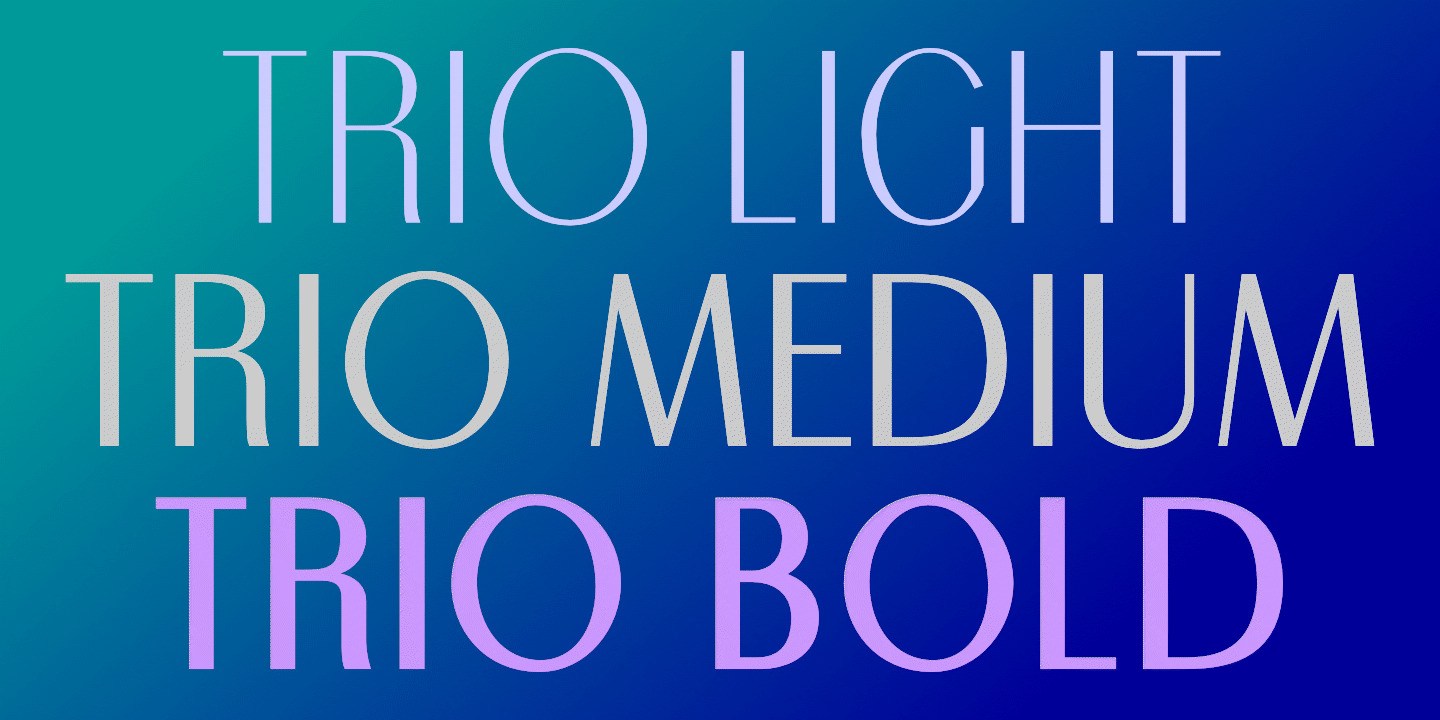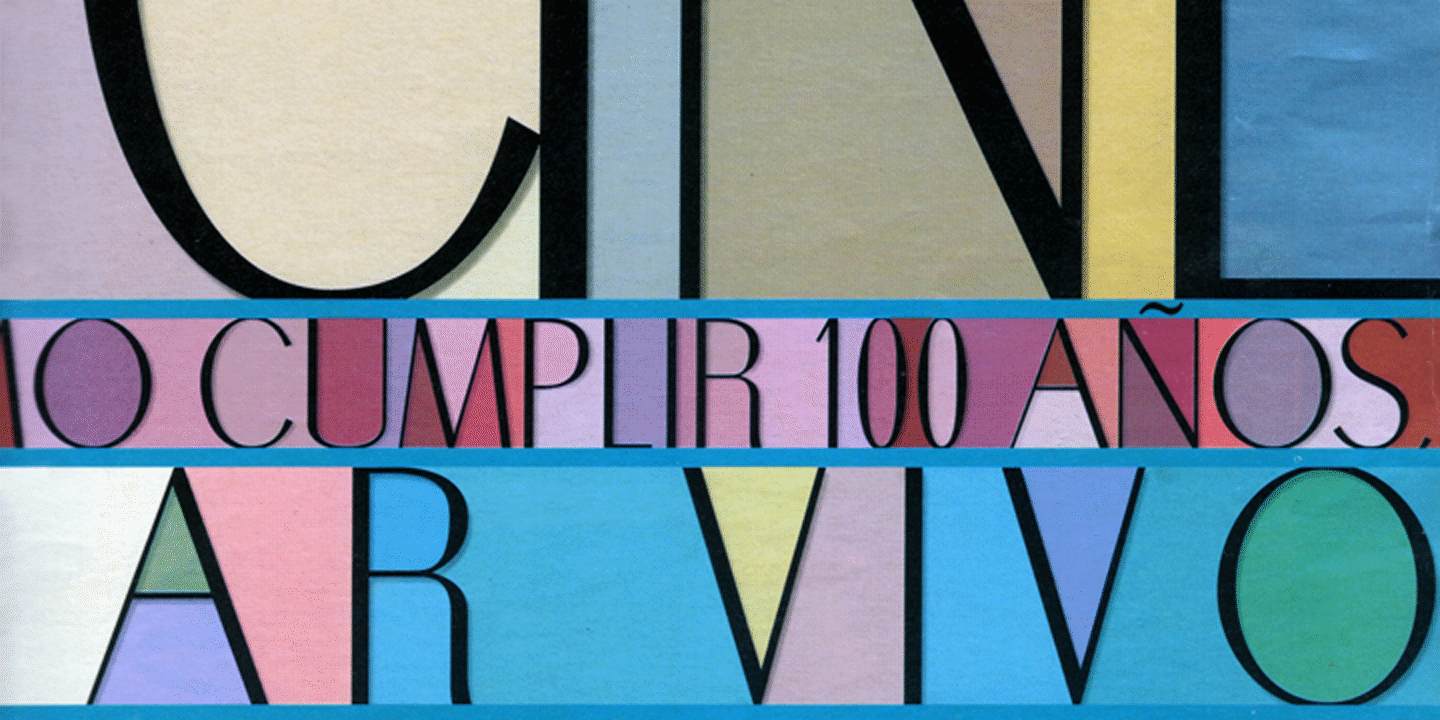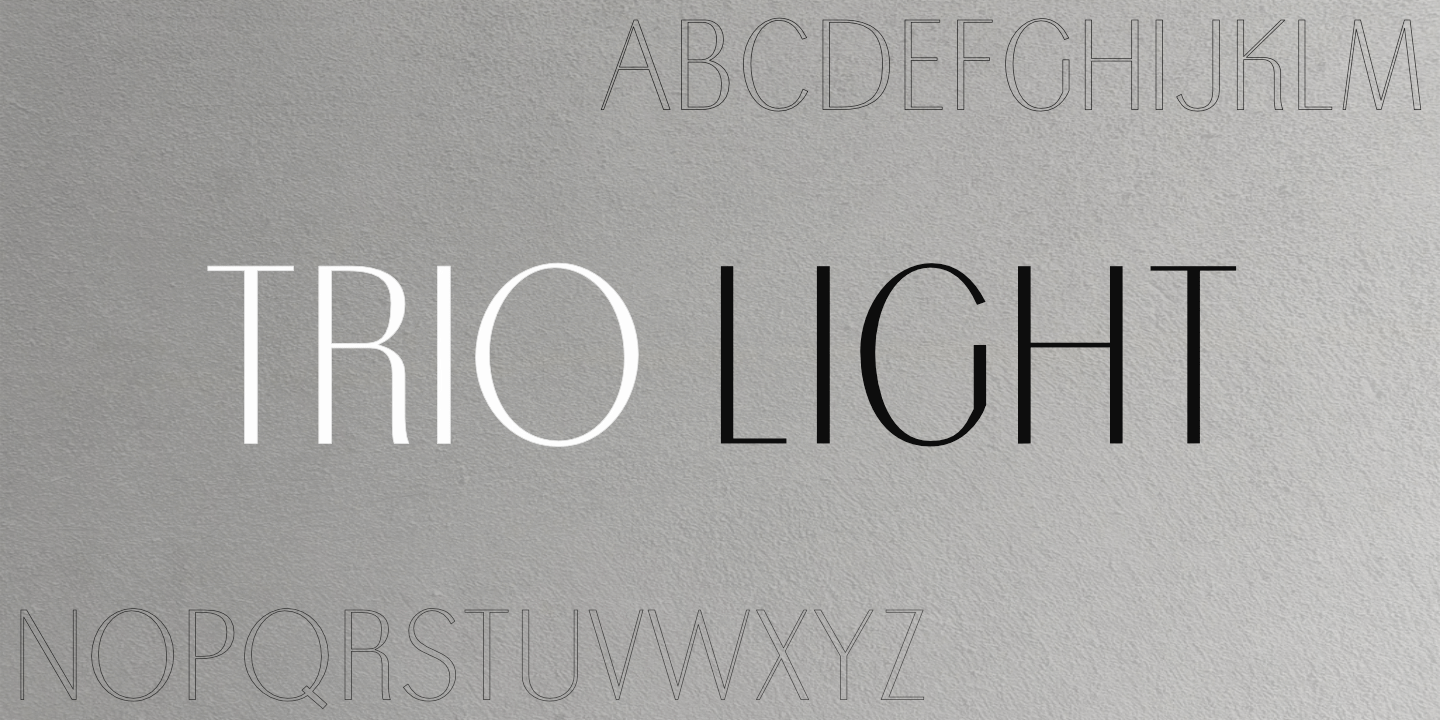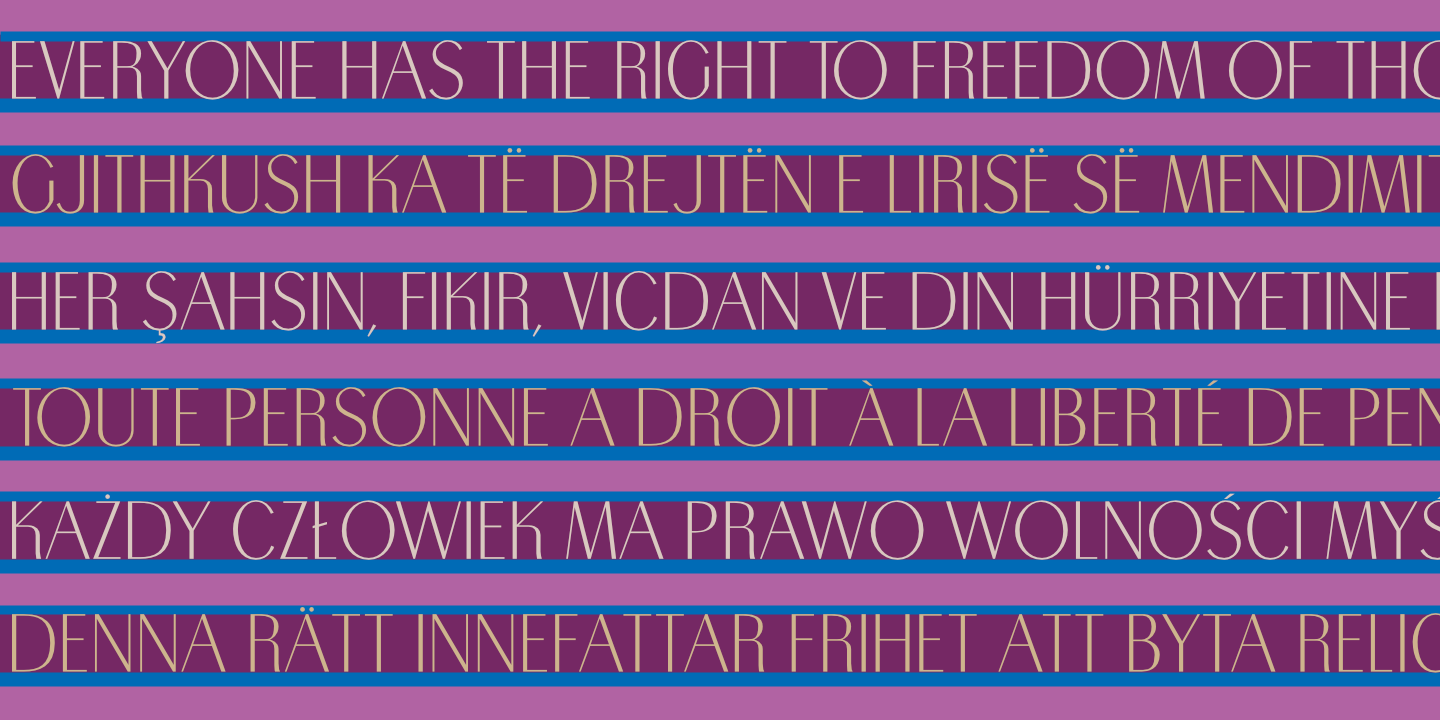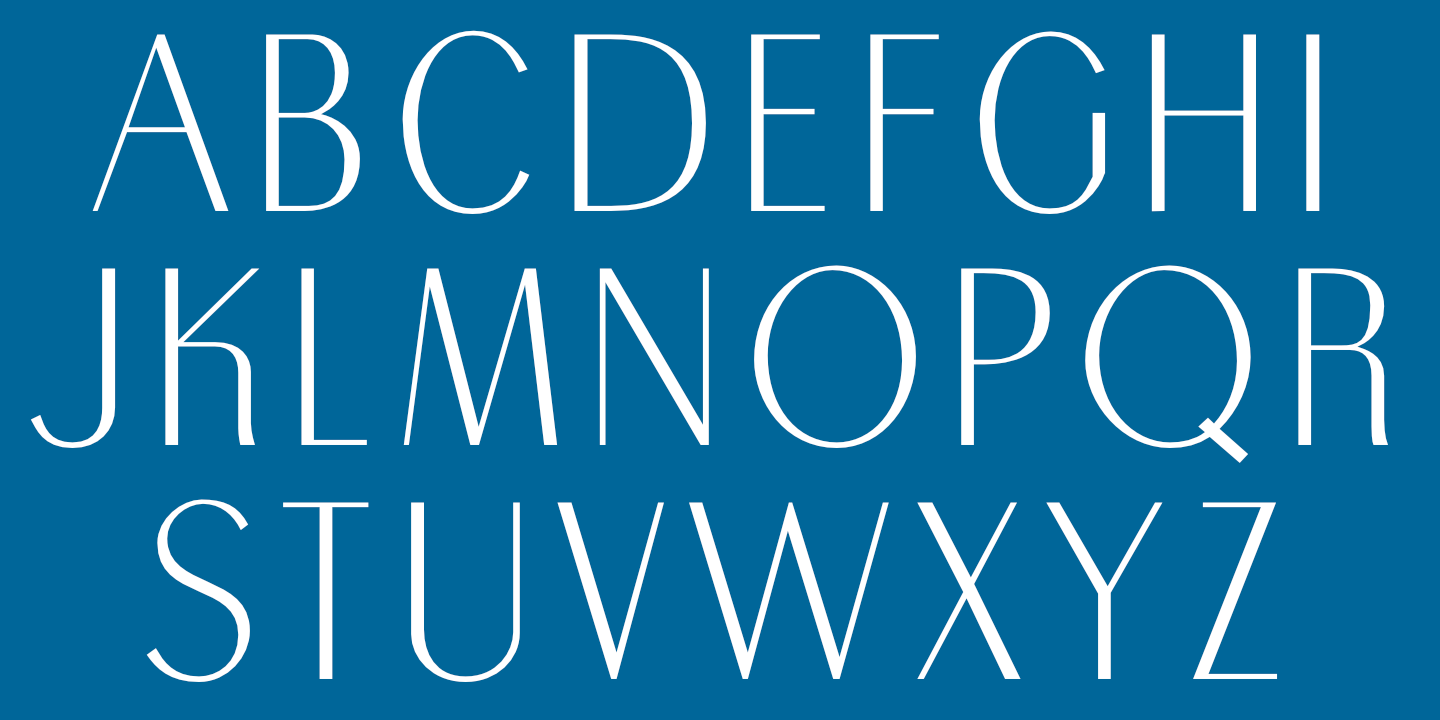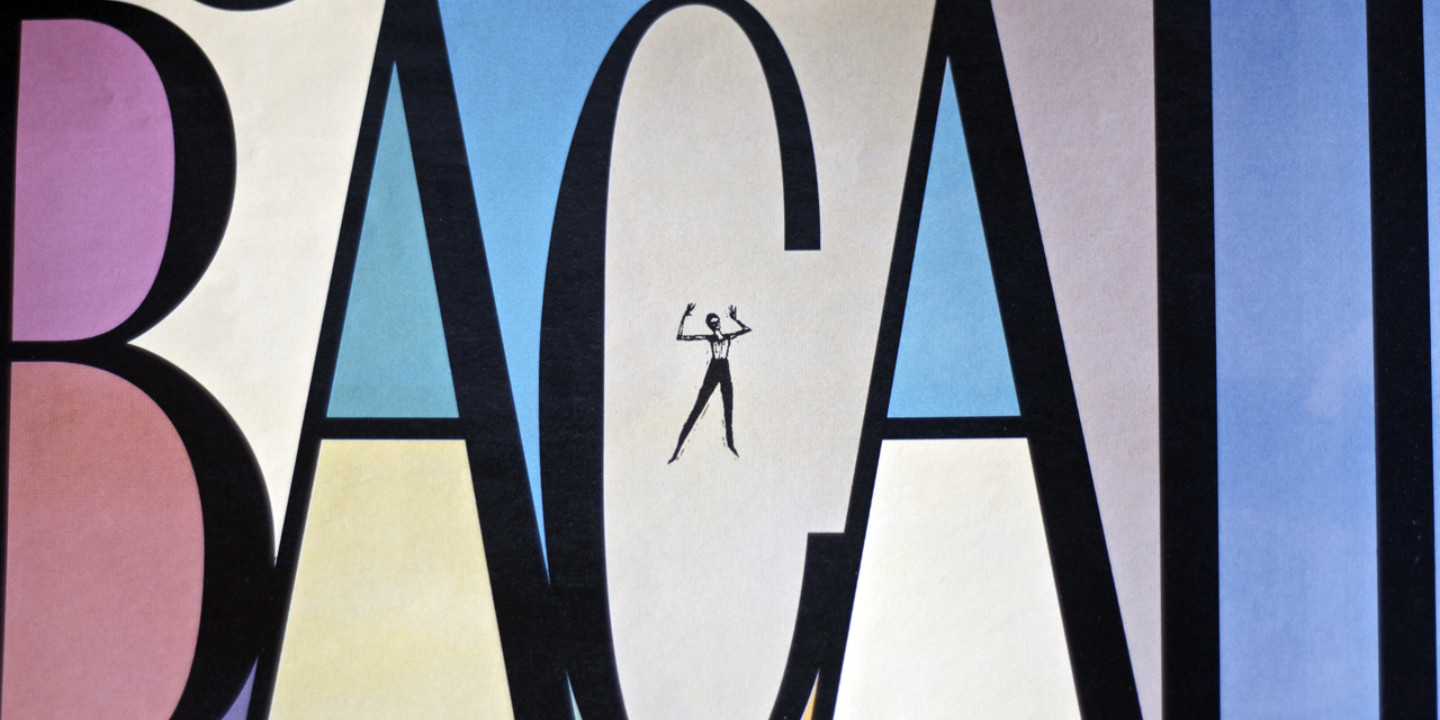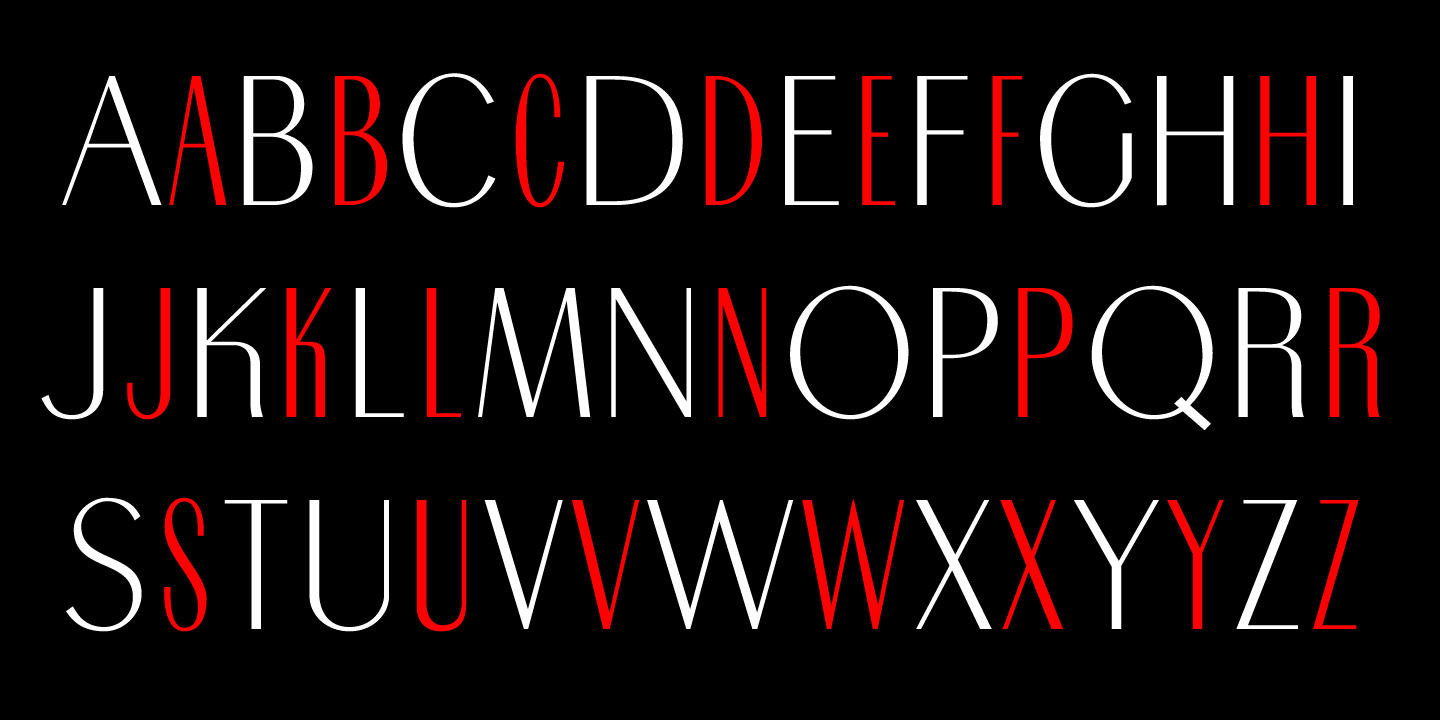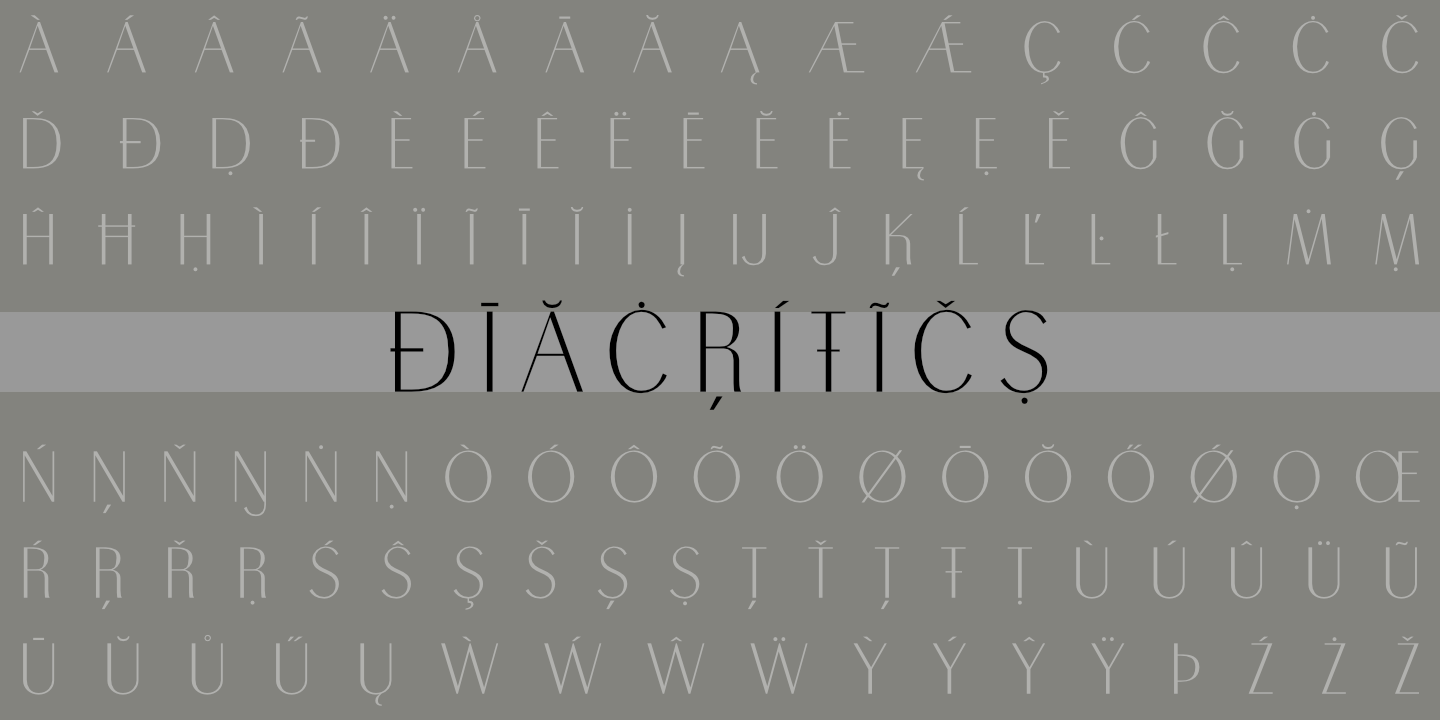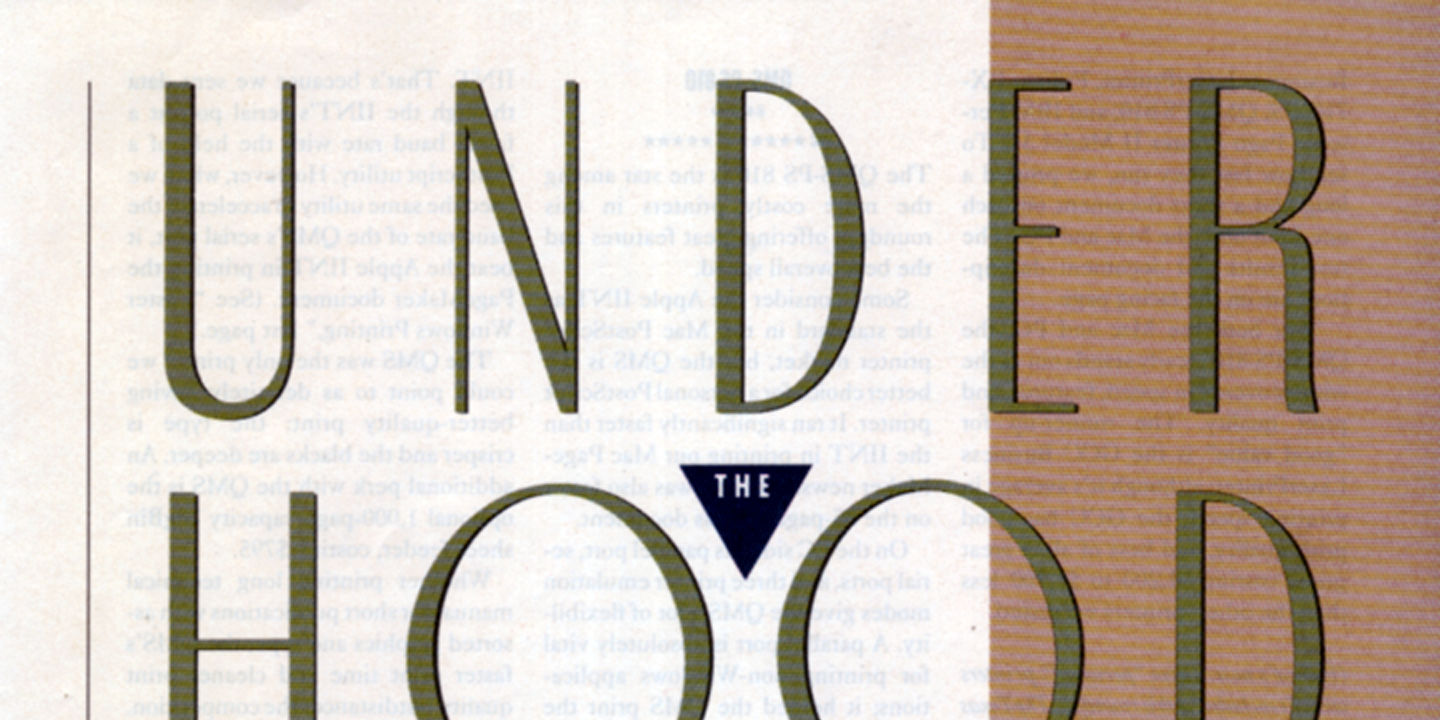
Trio CT Light: Basic Latin alphabet. Trio supports most European languages. See Glyphs for details.
Trio CT Light: Art deco alternates for some letters, shown in red. See Glyphs for details.
Trio CT Light: Numerals, basic punctuation, currency symbols, and a sampling of ornaments.
Trio CT Light supports most European languages that use the Latin alphabet. Art deco style (all caps) below.
Trio Light used for an album cover.